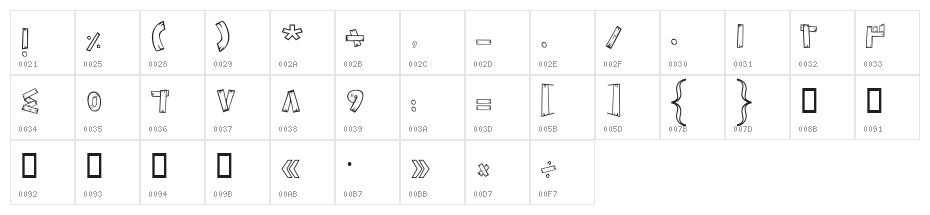
Wood II Font
Wood II Description
This font features a distinctive, playful design that mimics the texture and appearance of wood. Each character is crafted to resemble pieces of wood with visible grain patterns and rough edges, giving it a rustic and handcrafted feel. The letters are slightly irregular in shape, adding to the whimsical and organic aesthetic. This font is ideal for projects that require a natural, earthy touch, such as outdoor event posters, eco-friendly product packaging, or children's book illustrations. The unique style of the characters makes it stand out, capturing attention with its creative and artistic flair.
WOOD-II UPPERCASE
WOOD-II LOWERCASE
WOOD-II OTHER CHARS
| Use Case | Logos, Posters, Illustrations |
| Proposed Projects | Ideal for eco-friendly branding, outdoor event posters, and children's book illustrations. |